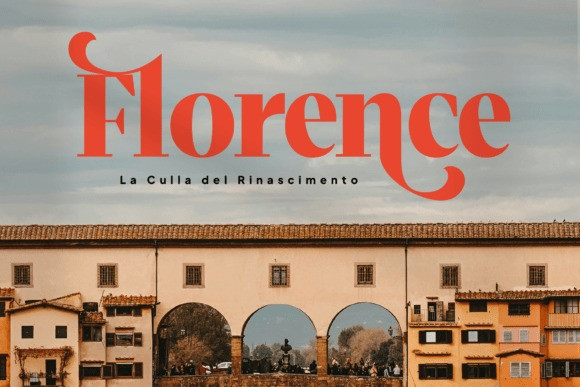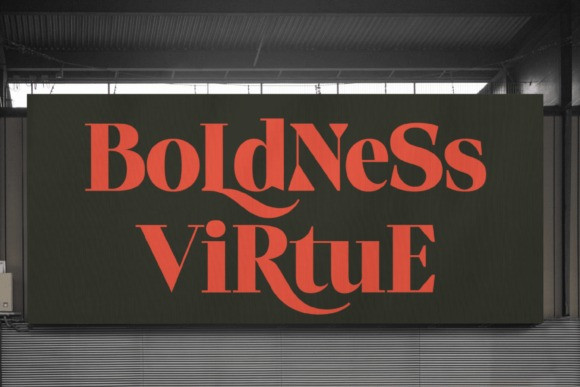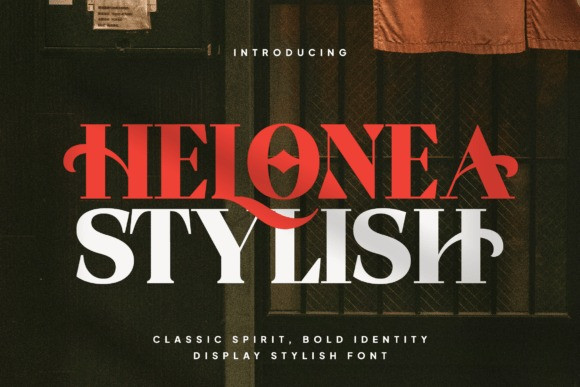
Helonea Font
Helonea Font – Experience the allure of strolling through a sun-kissed Milanese art gallery, or the fascination of noting the sparkle of a classic gold timepiece under the glow of a street light. This discreet yet powerful elegance serves as the heart of Helonea. Birthed from the inspiration to harmoniously blend the grandeur of ageless Roman geometry with the progressive aura of contemporary style, Helonea presents a captivating visual narrative. Uniquely, it serves as a compelling juncture between the storied ‘Classic Spirit’ of the past, and the intriguing ‘Bold Identity’ evolving into the future. An ambience of quiet charm that effortlessly commands attention, that’s the essence of Helonea.